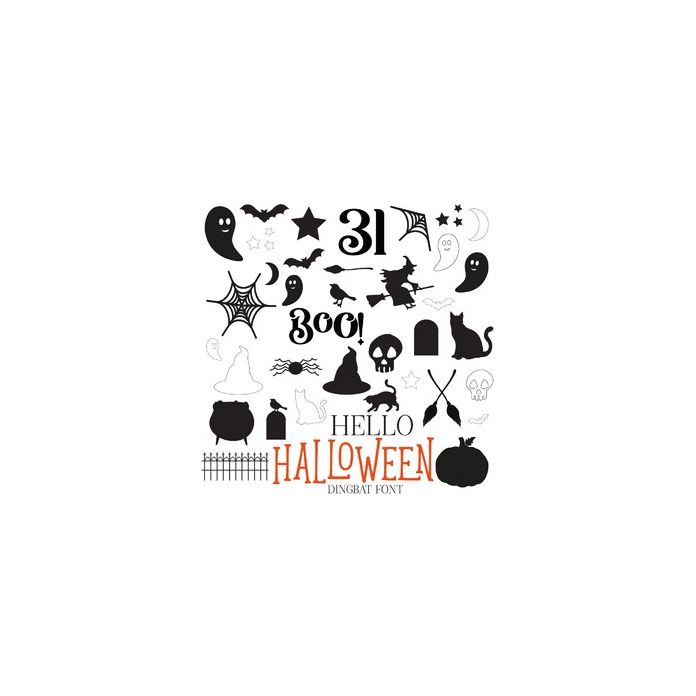
Hello Halloween Dingbat Font. Contains Solid and Outline Halloween Icons. Uppercase letters are solid silhouettes and lowercase are outlines! All are also available via the glyphs panel / character map.